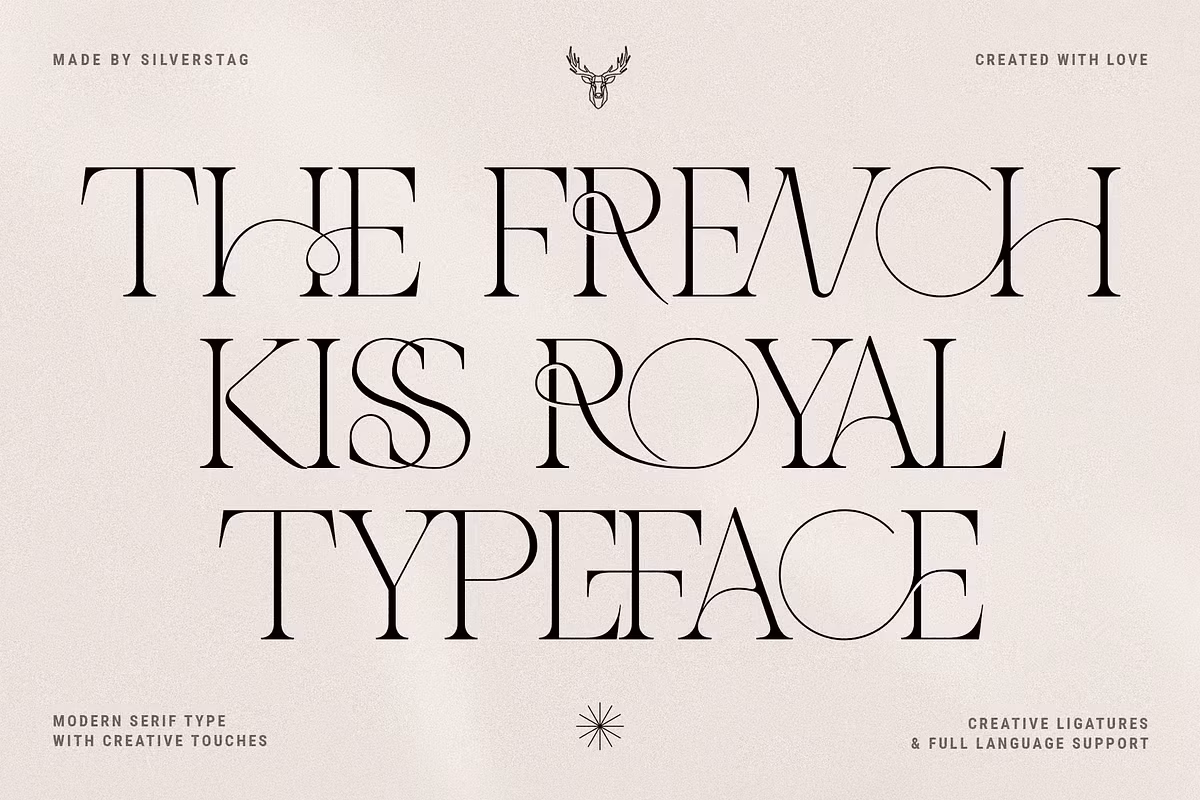
THE FRENCH KISS ROYAL TYPEFACE Free Download
THE FRENCH KISS ROYAL TYPEFACE Free Download is an elegant and sophisticated font designed to add a touch of royalty and romance to your designs. With its beautiful curves, luxurious style, and regal flair, this typeface is perfect for branding, invitations, logos, wedding stationery, and any project that needs a high-end, chic aesthetic.
Whether you're designing for a luxury brand, crafting elegant invitations, or building a refined visual identity, THE FRENCH KISS ROYAL TYPEFACE brings timeless beauty and sophistication to your typography. It’s the perfect font for designers seeking elegance with a modern royal touch.